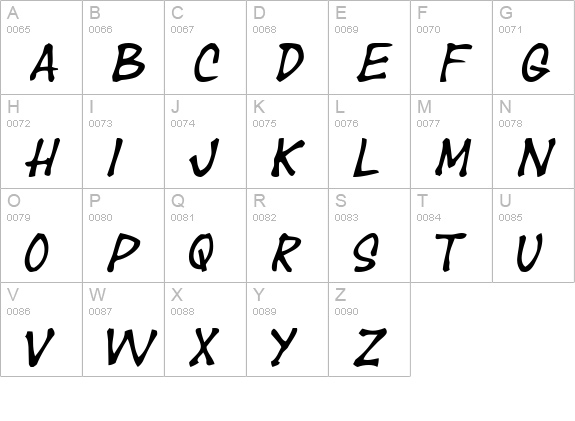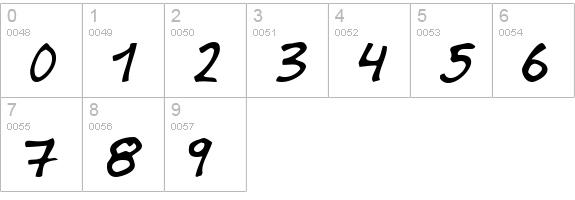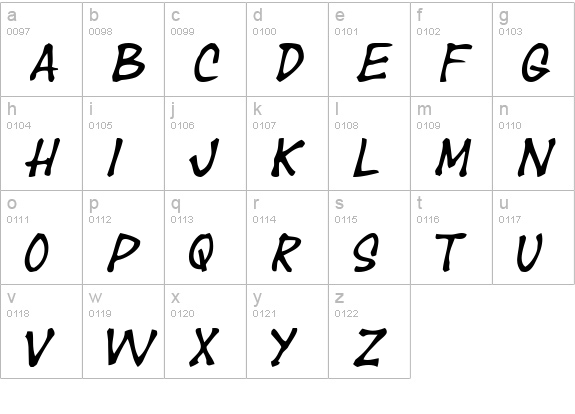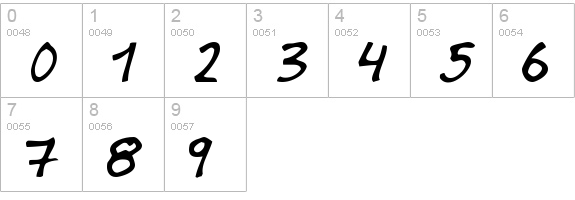
The Year Supply of Fairy Cakes font is a whimsical and enchanting typeface that is perfect for adding a touch of magic to your designs. With its delicate curves and playful style, this font is sure to bring a smile to anyone's face. Whether you're working on a children's book, party invitation, or any other project that needs a touch of fairy dust, the Year Supply of Fairy Cakes font is the perfect choice. And the best part? This charming font is available for free download at FontsMarket.com! So you can easily add a sprinkle of fairy magic to your projects without breaking the bank. Don't miss out on this delightful font that will make your designs truly enchanting. Download the Year Supply of Fairy Cakes font today and let your creativity soar!